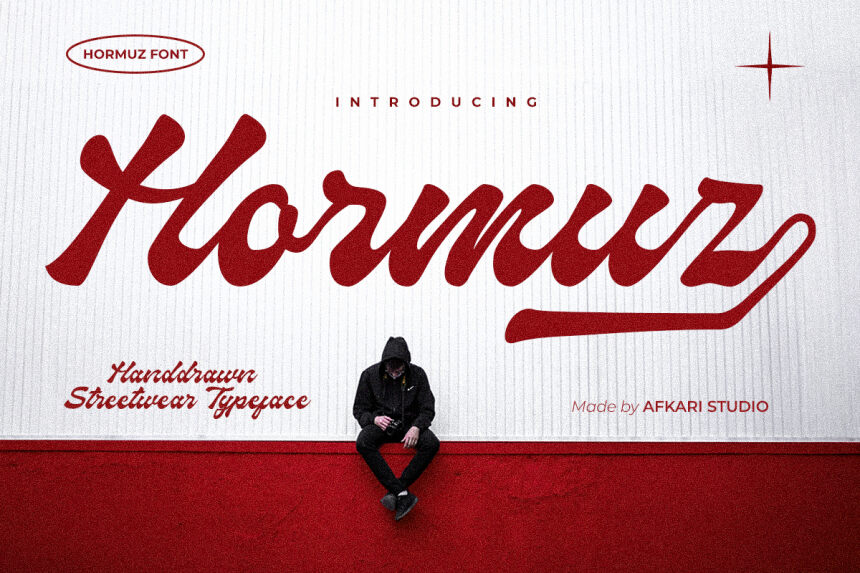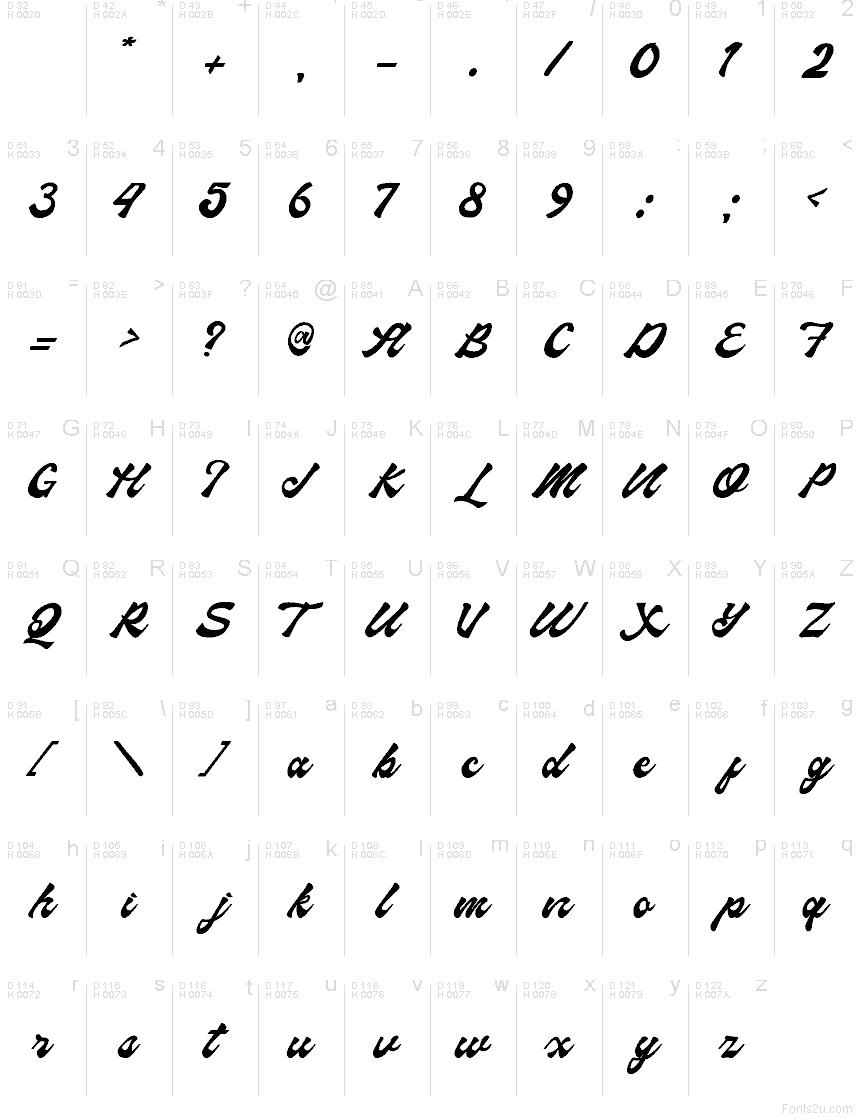
Hormuz, by Afkari Studio, is a free brush script font with a quick, hand-painted swing and a slightly rough edge that keeps it from feeling polished or precious. The letters lean into each other with broad, tapering strokes and a loose connected rhythm, so the whole font feels more like a fast signature than a careful calligraphy set.